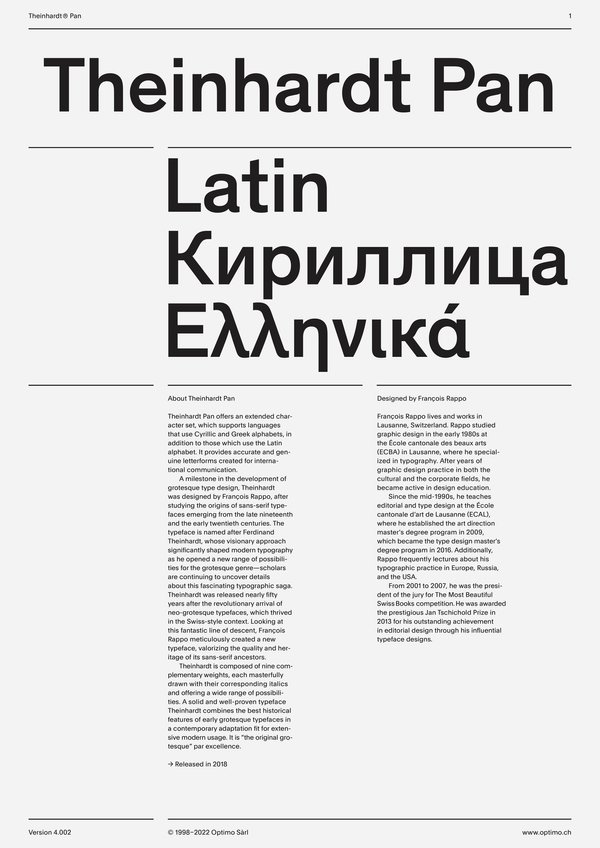
Theinhardt Pan
Case Sensitive Forms
All Caps [cpsp]
Case Sensitive Forms [case]
This function formats the text in uppercase and adjusts spacing between all capital letters. It also applies the ‘Case Sensitive Forms’ feature which replaces certain characters with alternates that are better suited for all capital text, especially related to punctuation.
Bulgarian alternates
Stylistic Set 3 [ss03]
This feature activates alternative letters used in Bulgarian language.
Macedonian and Serbian alternates
Stylistic Set 4 [ss04]
This feature activates the alternative “be” letter used in Serbian language.
Serbian alternates [italics only]
Stylistic Set 5 [ss05]
This feature activates alternative italic letters used in Serbian language.
Historical long s
Stylistics Set 1 [ss01]
This feature replaces glyph(s) with stylistic alternate(s).
Tabular Lining Figures
Tabular Lining Figures [tnum–lnum]
Based on the proportions of the capitals, lining figures have an invariable height. With the combination of the tabular spacing format, the width of each numeral is uniformized. This feature is useful when numerals need to all lined up. It facilitates the reading of numbers set within columns or tables. As some applications don’t have access to this feature, proportional figures are set as the default choice.
Proportional Oldstyle Figures
Proportional Oldstyle Figures [pnum–onum]
Based on the design of the lowercase, oldstyle figures have varying ascenders and descenders. Like most of the letters, each number has an appropriate width based on its shape. The combination of oldstyle figures with proportional setting generate numerals perfectly adapted for text.
Tabular Oldstyle Figures
Tabular Oldstyle Figures [tnum–onum]
Based on the design of the lowercase, oldstyle figures have varying ascenders and descenders. With the combination of the tabular spacing format, the width of each numeral is uniformized. This feature is useful when numerals need to all lined up. It facilitates the reading of numbers set within columns or tables.
Fractions
With this feature, any numbers separated by a slash will automatically turn into a fraction. To fit in fraction configuration, numerals have been designed smaller and their weights have been adjusted to suit the typeface.
Lowercase math symbols
Stylistic Set 6 [ss06]
This feature activates alternate lowercase positioning of mathematical symbols.
This feature replaces any letter following a numeral with its matching superior letters. French language uses the ordinal indicators such as ‘er’ for 1er premier, while Spanish, Portuguese and Italian require the feminine and masculine ordinals ‘a,’ ‘o’ for 1º, 1ª. Ordinals are designed to match the weight of the typeface.
Slashed Zero
Slashed Zero [zero]
Originally created to avoid the confusion between the ‘0’ and the ‘O’, this feature substitutes all zeros in a selected text by a slashed form of the zero.
Slashed Zero Oldstyle
Slashed Zero [zero]
Originally created to avoid the confusion between the ‘0’ and the ‘O’, this feature substitutes all zeros in a selected text by a slashed form of the zero.
Proportional Oldstyle Figures [onum]
Tabular figures are all of equal width. They are only needed when the figures must all line up from one line to the next, as in a table. Proportional figures have varying widths, just like most letters; each number has a width appropriate to its design. Lining figures are all the same height, usually similar to that of capital letters. They are needed for use with all-capital settings.
Multiply sign
Stylistic Set 20 [ss20]
This feature substitutes the letter “x” into the multiplication sign.
Numerators [numr]
This feature substitutes glyphs with their matching smaller alternates. The numerators are the same glyphs that are used to create fractions, their vertical position remains within the capital letters height. These glyphs are reduced in size and designed slightly heavier to keep them consistent with the rest of the font.
Theinhardt is composed of nine complementary weights, each masterfully drawn with their corresponding italics and offering a wide range of possibilities. A solid and well-proven typeface Theinhardt combines the best historical features of early grotesque typefaces in a contemporary adaptation fit for extensive modern usage. It is “the original grotesque” par excellence.